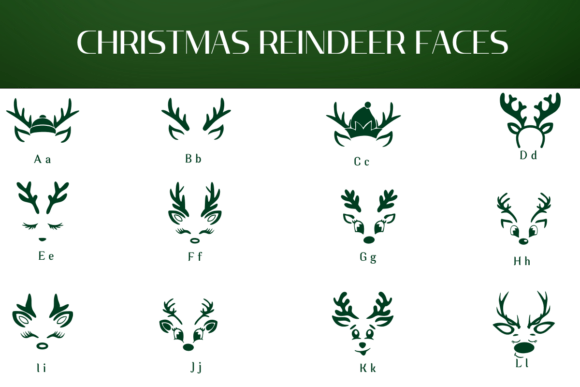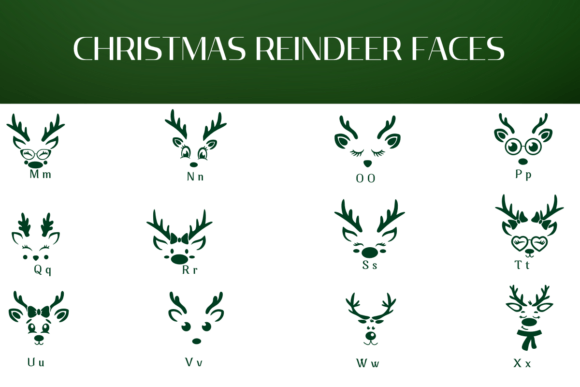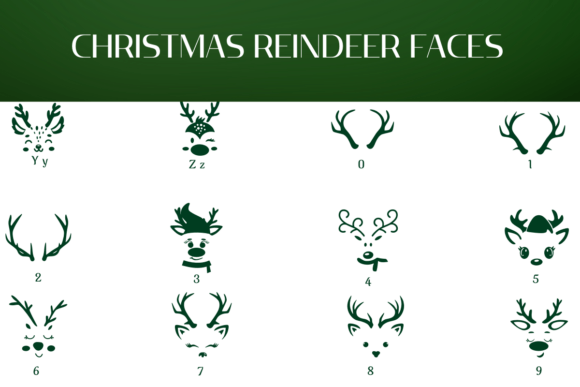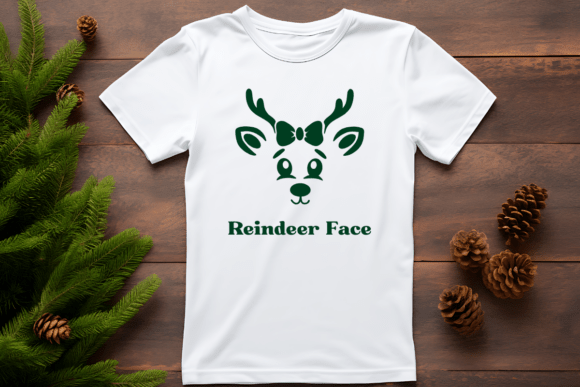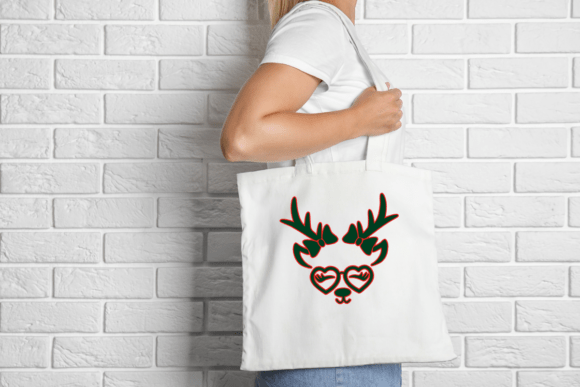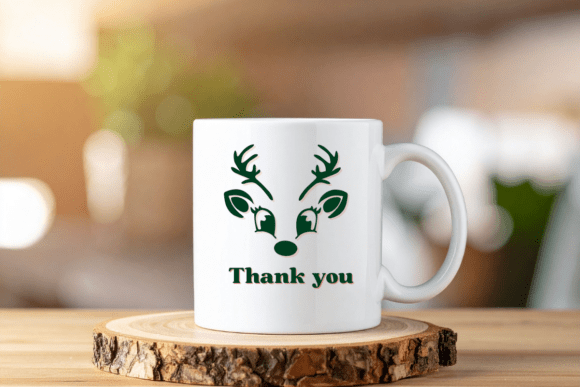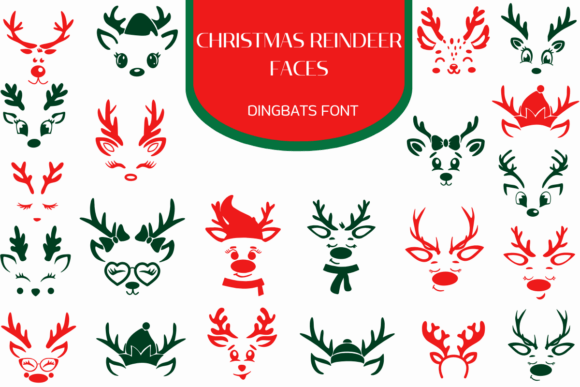
Christmas Reindeer Faces Font: A Fun and Festive Dingbats Font for Your Holiday Designs
Are you looking for a unique and playful font to add some holiday cheer to your designs? Look no further than the Christmas Reindeer Faces Font! This delightful dingbats font is perfect for taking notes, writing a diary, or making greeting cards, and can also be used for a wide range of other designs, such as banners, content, mugs, cards, shirts, stationery, social media posts, and more!
What is a Dingbats Font?
For those who may not be familiar, a dingbats font is a type of font that features symbols, icons, and graphics rather than traditional letters and numbers. Dingbats fonts are often used for decorative purposes, and can add a fun and creative touch to any design. The Christmas Reindeer Faces Font is a type of dingbats font that features adorable reindeer faces, perfect for adding a touch of holiday magic to your designs.
Uses for Christmas Reindeer Faces Font
The Christmas Reindeer Faces Font is incredibly versatile, and can be used for a wide range of designs and projects. Here are just a few ideas to get you started:
- Holiday Greeting Cards: Use the Christmas Reindeer Faces Font to create adorable and festive holiday greeting cards for friends and family.
- Social Media Posts: Add some holiday cheer to your social media posts with the Christmas Reindeer Faces Font. Perfect for Facebook, Instagram, Twitter, and more!
- Mugs and Water Bottles: Create fun and festive mugs and water bottles with the Christmas Reindeer Faces Font.
- T-Shirts and Apparel: Use the Christmas Reindeer Faces Font to create adorable holiday-themed t-shirts, hoodies, and other apparel.
- Stationery and Journaling: Add some holiday cheer to your stationery and journaling with the Christmas Reindeer Faces Font.
- Banners and Signs: Use the Christmas Reindeer Faces Font to create festive banners and signs for your holiday parties and events.
Why You’ll Love the Christmas Reindeer Faces Font
So why should you choose the Christmas Reindeer Faces Font for your holiday designs? Here are just a few reasons:
- Unique and Playful: The Christmas Reindeer Faces Font is a unique and playful way to add some holiday cheer to your designs.
- Versatile: The Christmas Reindeer Faces Font can be used for a wide range of designs and projects, from greeting cards to social media posts.
Tips for Using the Christmas Reindeer Faces Font
Here are a few tips for using the Christmas Reindeer Faces Font:
- Experiment with Different Sizes: Experiment with different sizes and arrangements of the reindeer faces to create a unique and eye-catching design.
- Combine with Other Fonts: Combine the Christmas Reindeer Faces Font with other fonts to create a fun and festive design.
- Use for Backgrounds: Use the reindeer faces as a background or texture to add some holiday cheer to your designs.